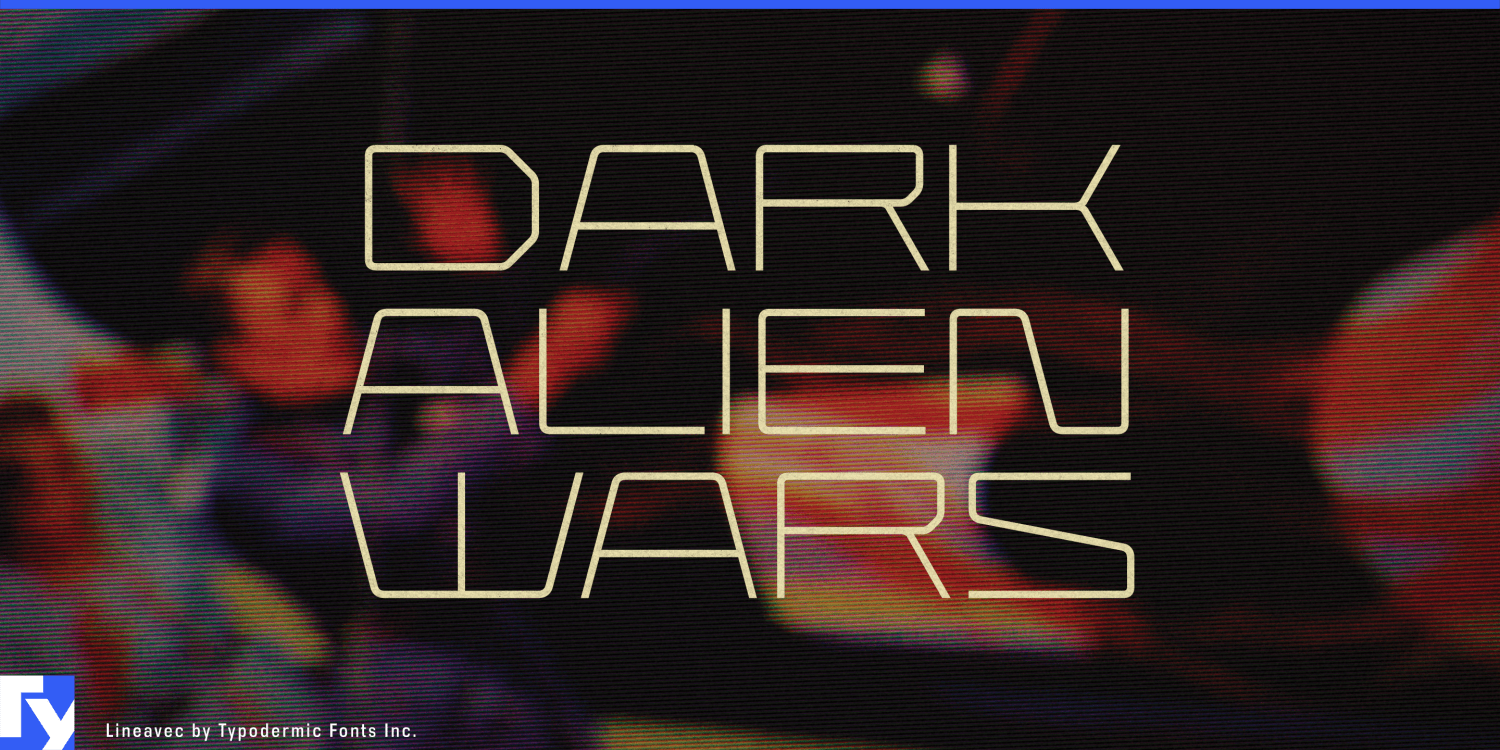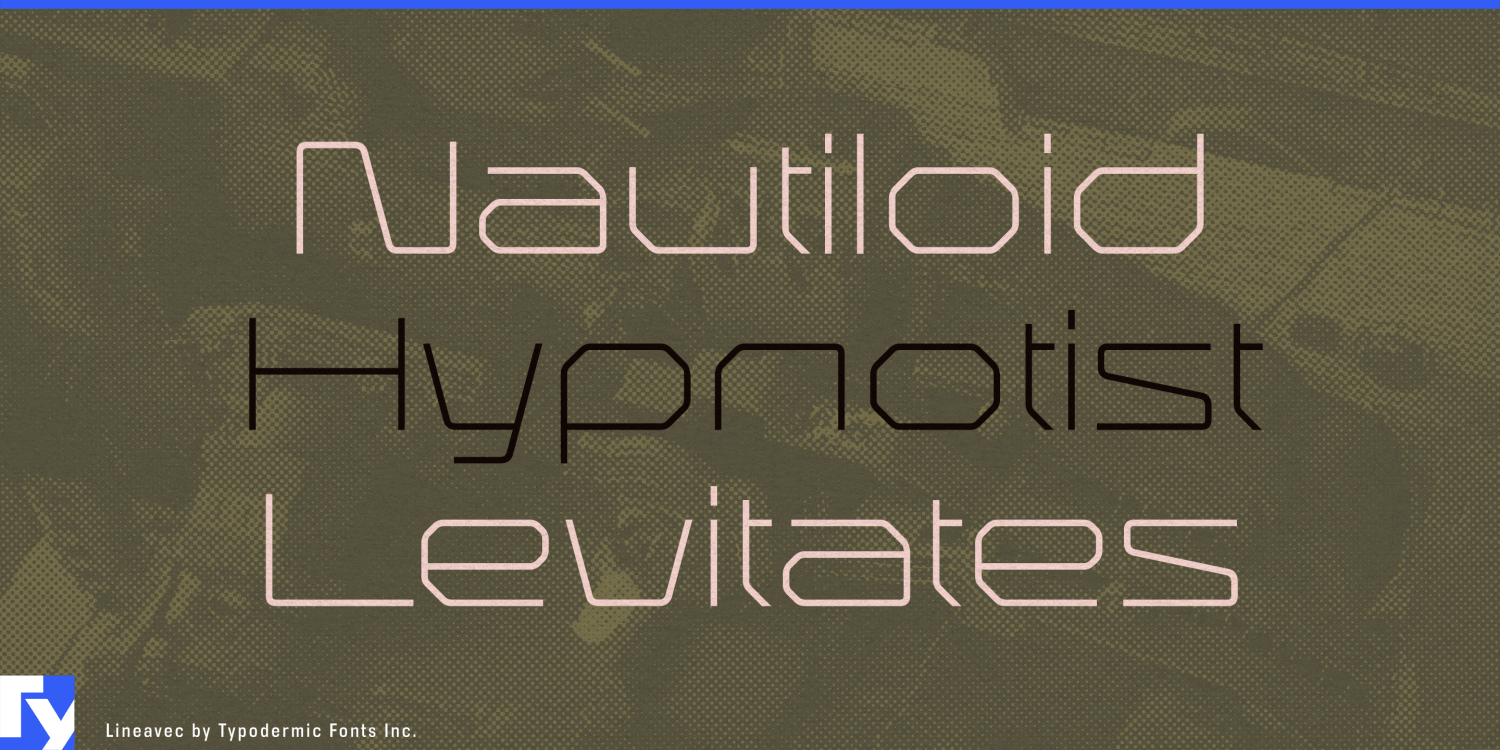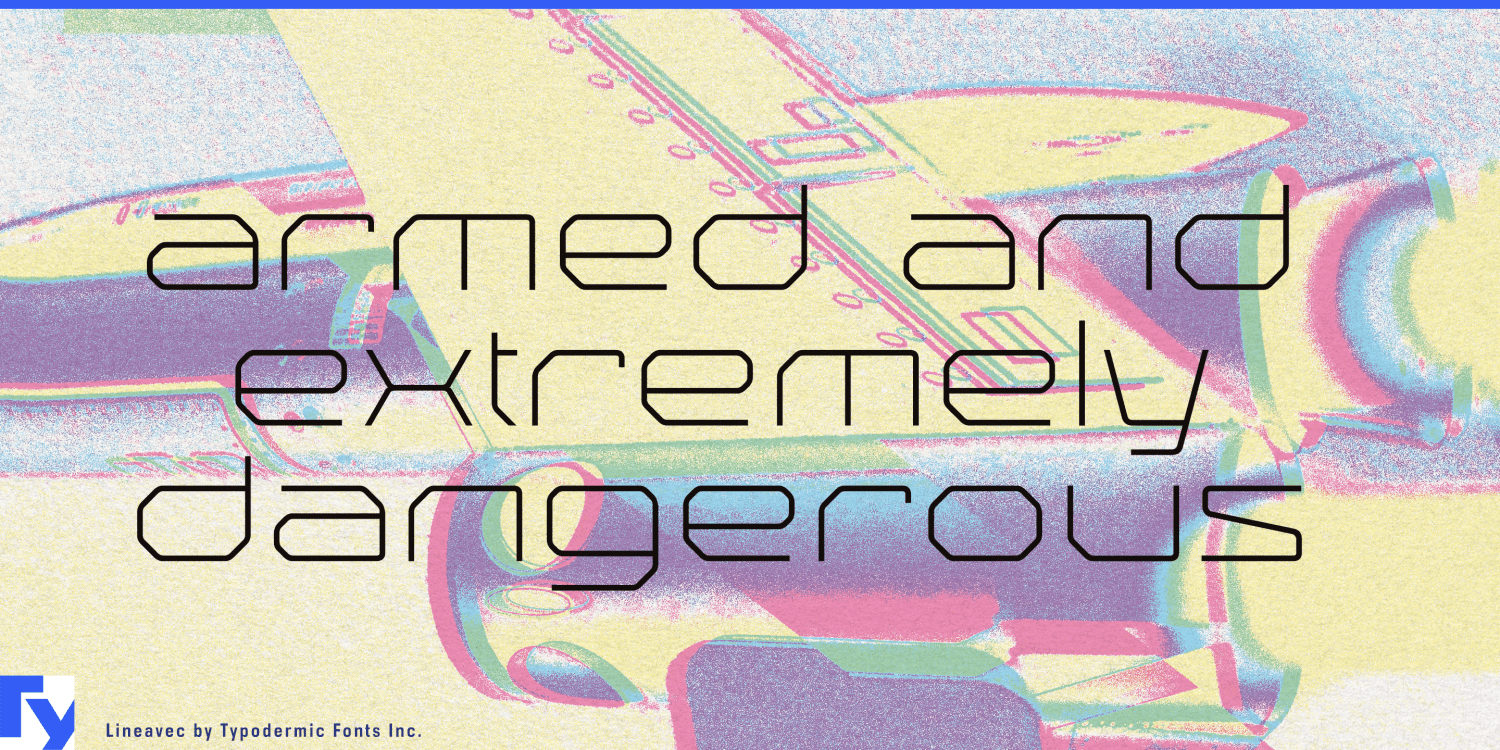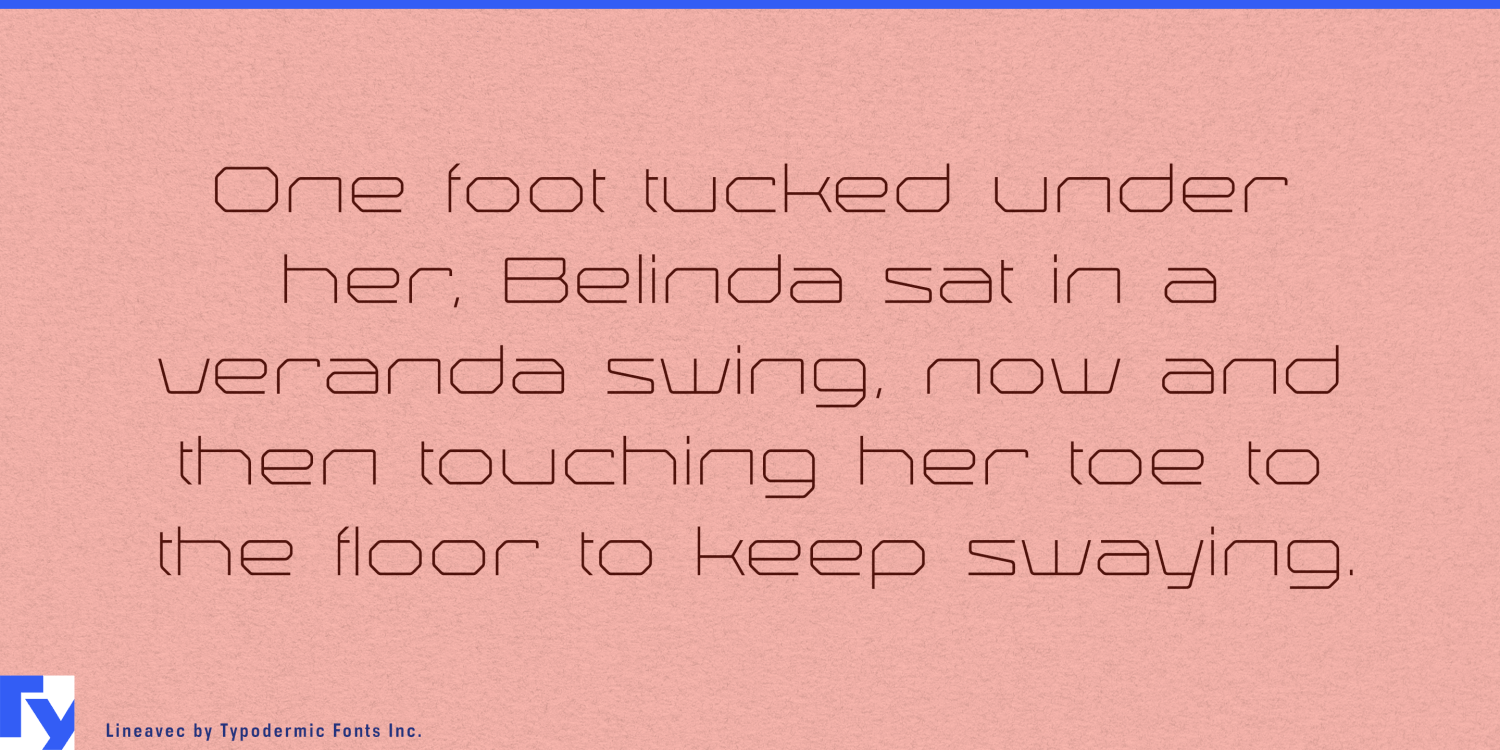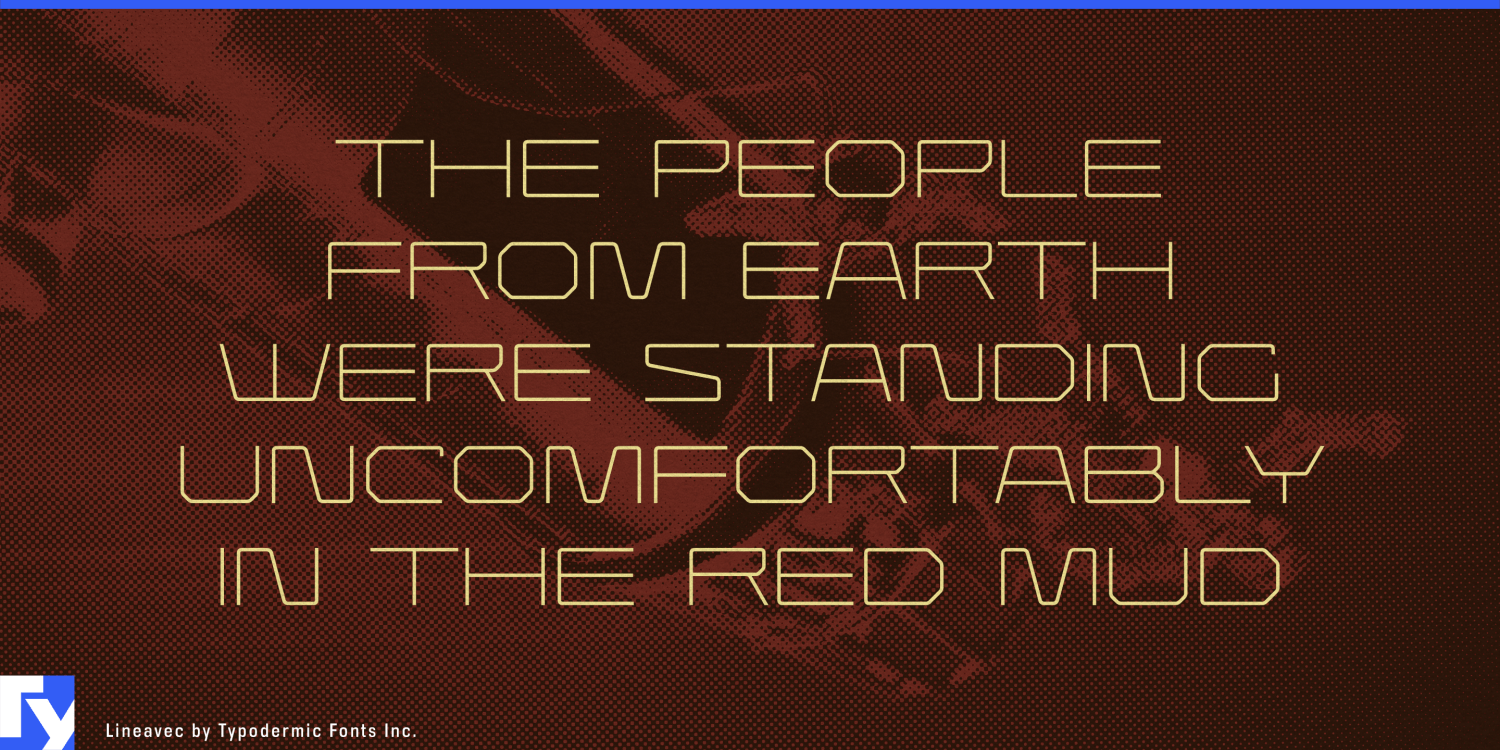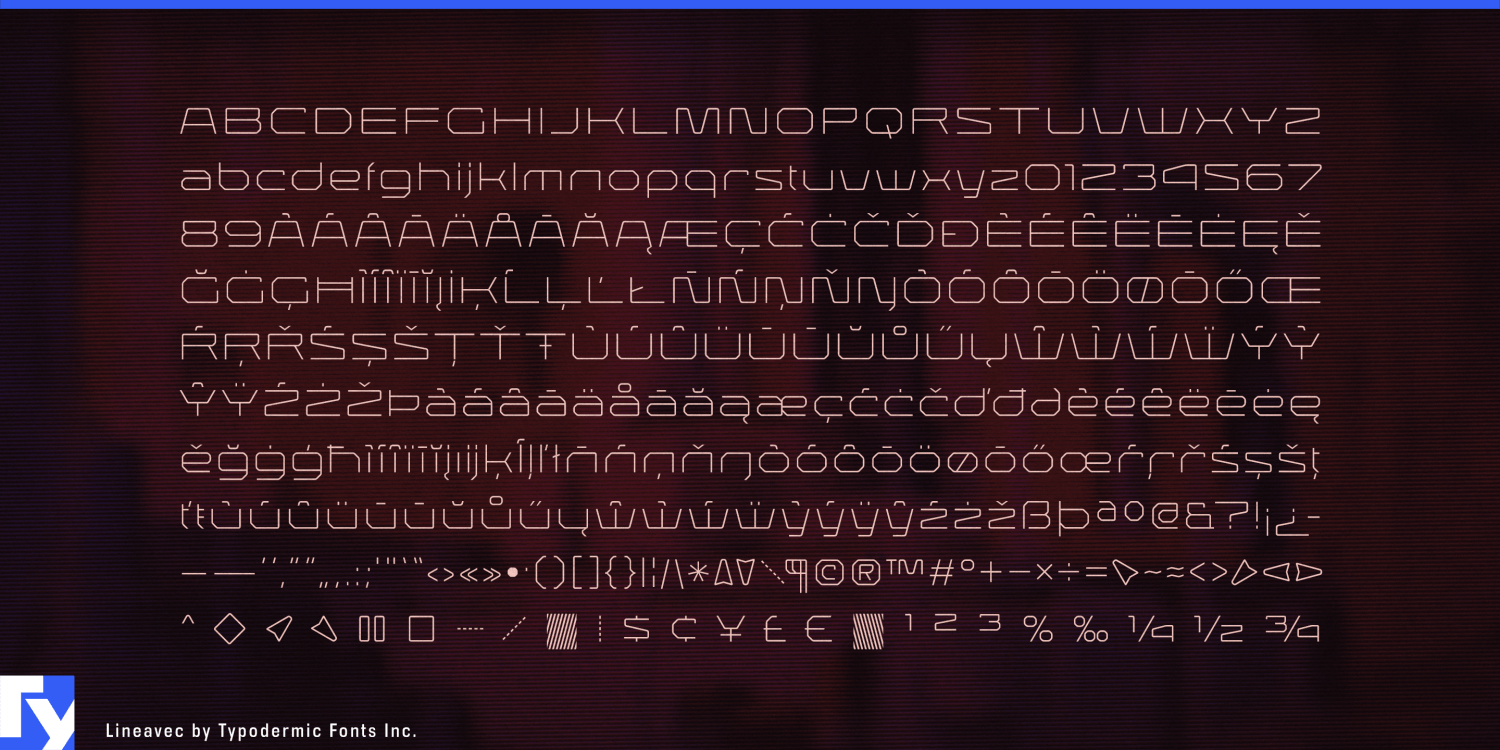
Lineavec
About Lineavec
Lineavec: the typeface that doesn’t just imagine the future—it blueprints it. This is a wormhole to tomorrow, each character a pixel in the grand digital tapestry of what’s to come. Imagine if TRON and Blade Runner had a typographic…